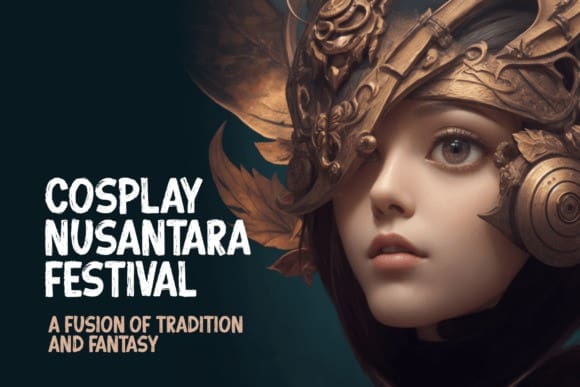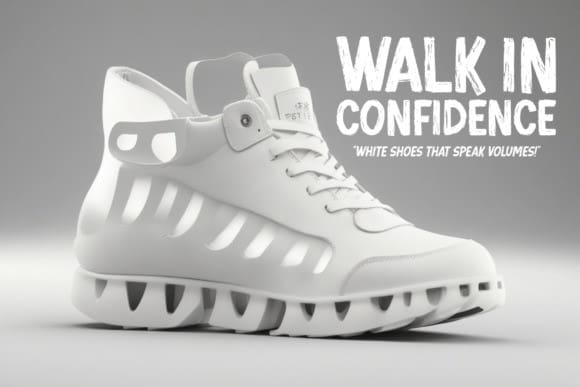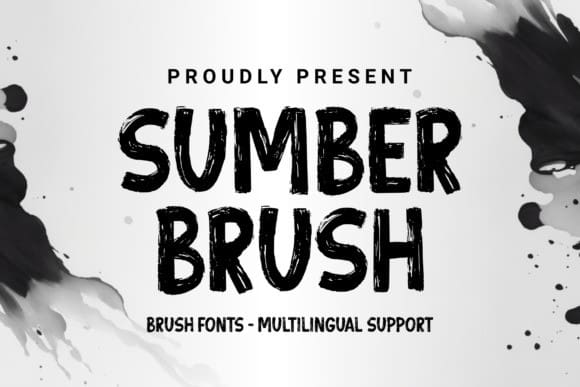
Sumber Brush Font
Sumber Brush Font is a font that blends boldness and sophistication in its design. With a firm and robust demeanor, each uppercase letter stands out with strong characteristics that define a creative and expressive style. Tailored specifically for graphic designers, this font imparts a unique and classy textural feel.